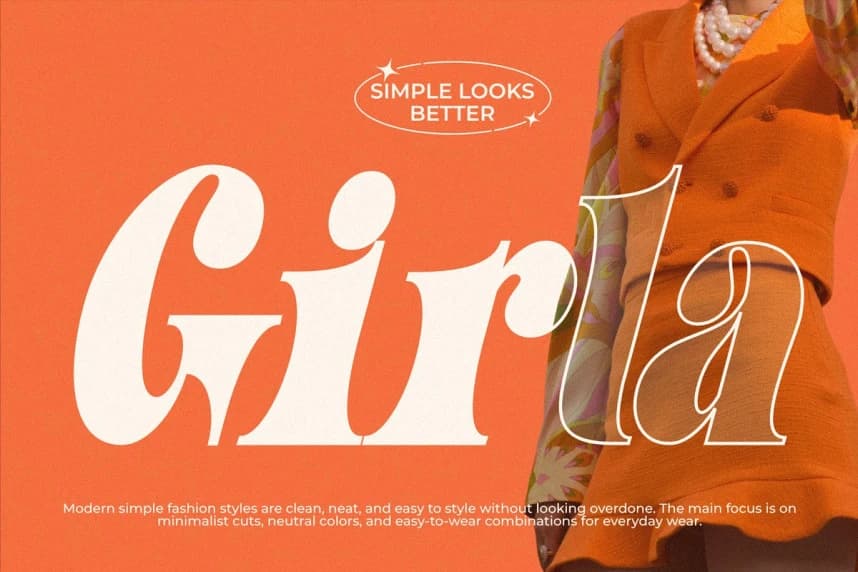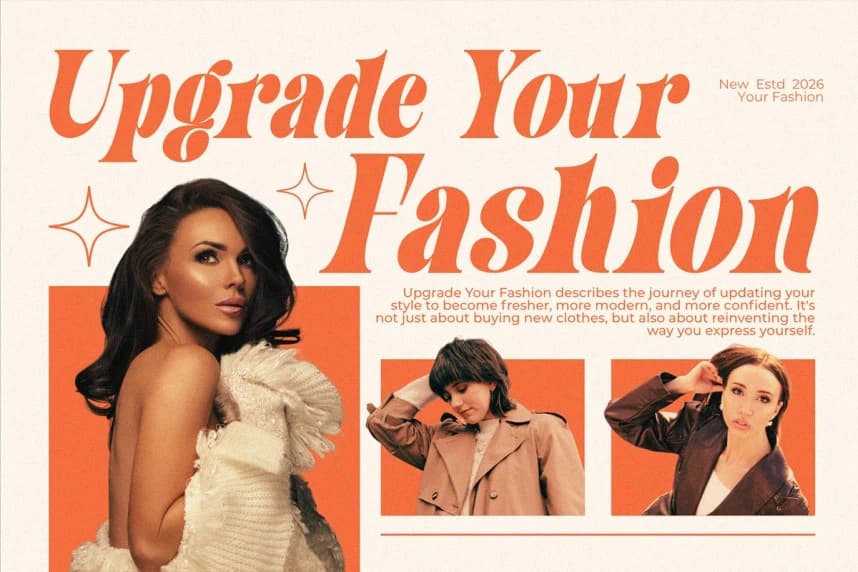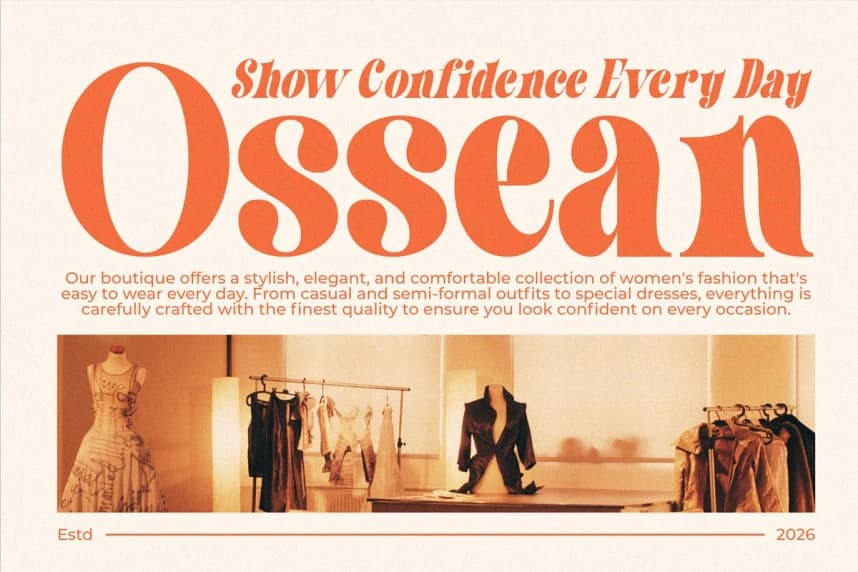
Olde Acosali Font
Olde Acosai Font is a refined and sophisticated serif duo font that blends timeless elegance with modern style. Designed with high contrast strokes, smooth curves, and stylish italic companions, this typeface brings a luxurious and graceful feel to any design.